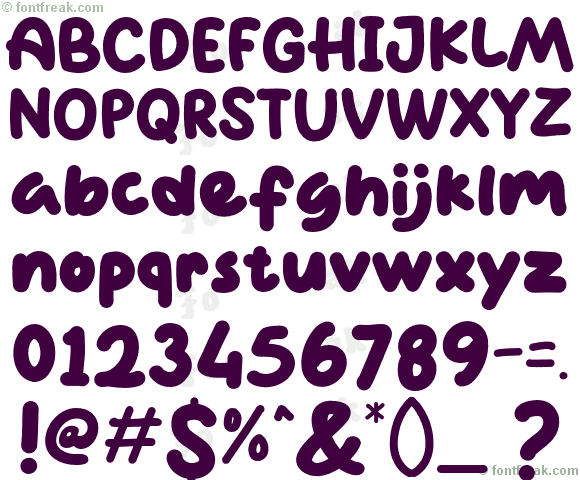
Characters Demo
About Characters Demo
Characters Demo by MJType is a playful display font that captures attention with its distinctive style. This font showcases a unique handwritten aesthetic, characterized by its rounded forms and irregular stroke weights that add a sense of whimsy and informality. The letters feature varying thicknesses, enhancing the overall visual dynamism and creating an inviting, friendly appearance. The spacious letter spacing ensures readability while maintaining a casual flow, making it suitable for various creative applications.
Best suited for projects that require an engaging and approachable touch, the Characters Demo font shines in areas such as children's book covers, playful branding for cafes or restaurants, and vibrant event invitations. Its informal style makes it an excellent choice for social media graphics, where capturing the audience's interest quickly is essential. Graphic designers, small business owners, and content creators will find this font particularly appealing for projects aimed at younger demographics or those seeking a lighthearted tone.
The Characters Demo font free download allows users to explore its versatility without financial commitment. This font stands out due to its ability to convey personality while remaining legible, making it a valuable asset in a designer's toolkit. Its distinctiveness lies in the balance between fun and functionality, ensuring that your designs not only attract attention but also communicate effectively. Whether you're crafting a logo, designing a flyer, or creating merchandise, Characters Demo by MJType offers a delightful solution that enhances your creative vision.